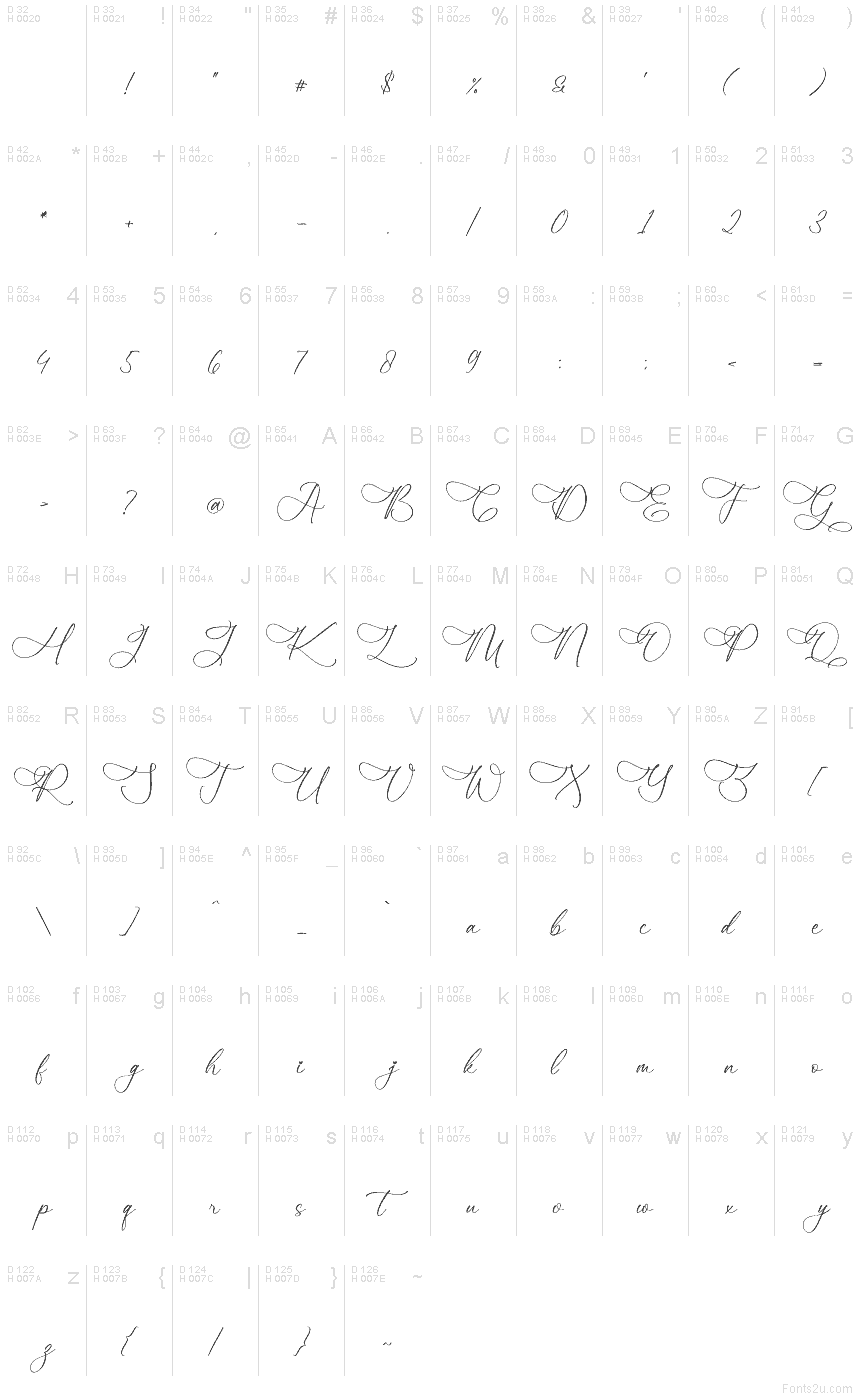
Ralsihten
Ralsihten font by Storytype Studio is a free thin calligraphy font. It stands out with feathery, inky strokes and extravagant, looping swashes that feel hand‑penned yet controlled. The playful heart-shaped dot and airy spacing add romance without turning saccharine, while the monoline curves keep it crisp on both screen and print.
Using Ralsihten, headlines glide with rhythm and small text still reads clean thanks to its steady stroke and generous breathing room. It shines on wedding invitations, save‑the‑dates, boutique logos, beauty packaging, quote graphics, event signage, and place cards. For balance, pair this free font with a simple sans-serif and give it ample size to let the flourishes breathe.